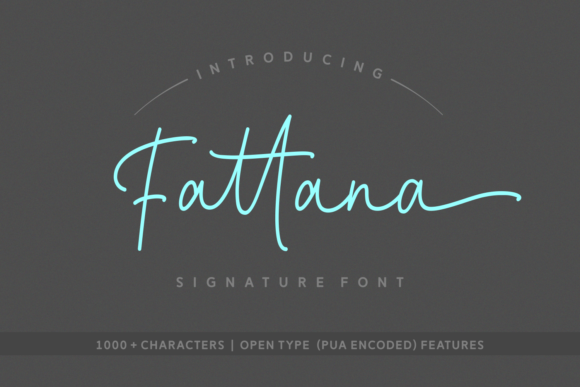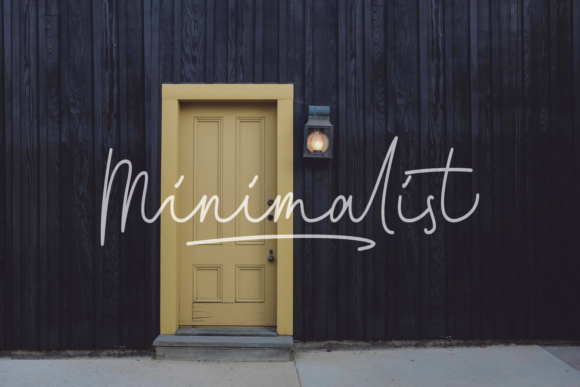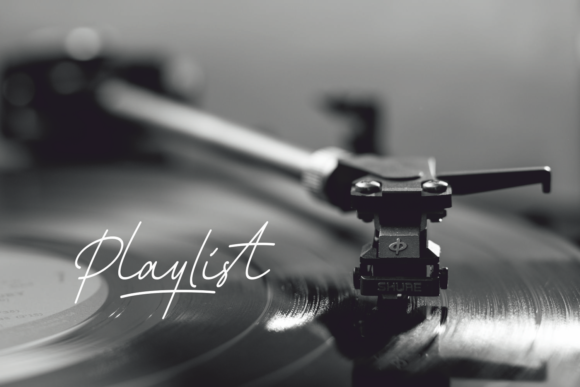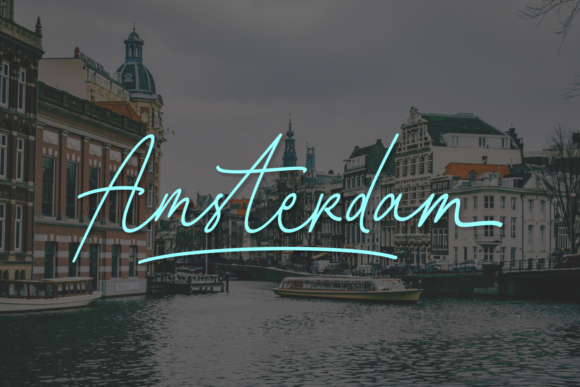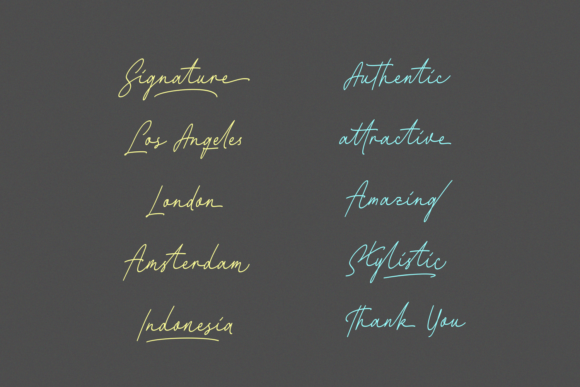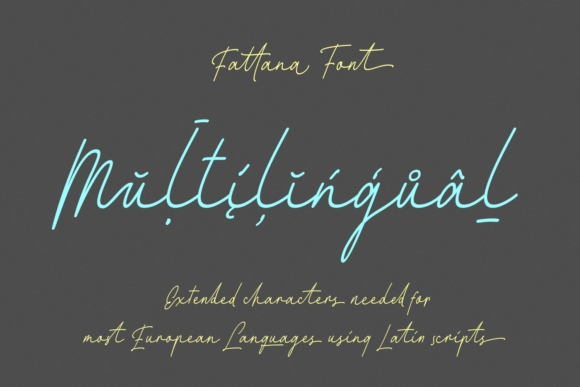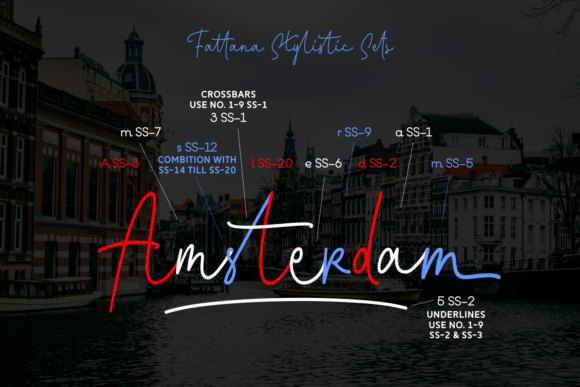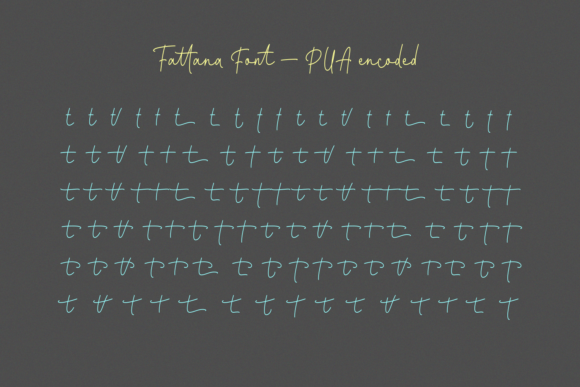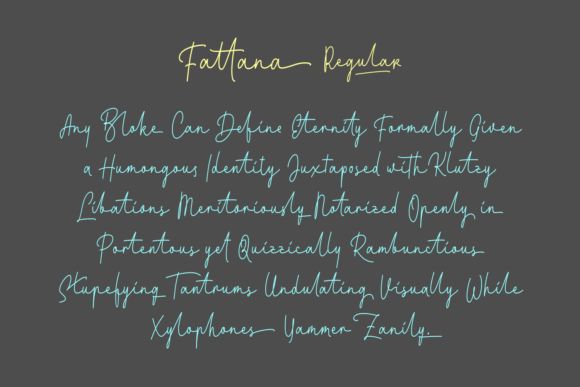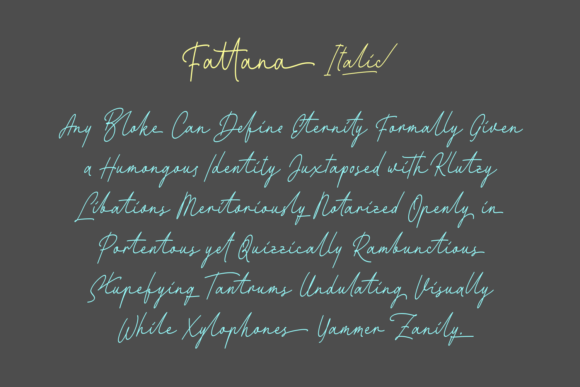
Fattana Font
About Fattana Font
Fattana is a wonderfully stylish signature font, perfect for use in headlines and editorial purposes. This font is monoline and thin, giving your designs a sleek appeal.